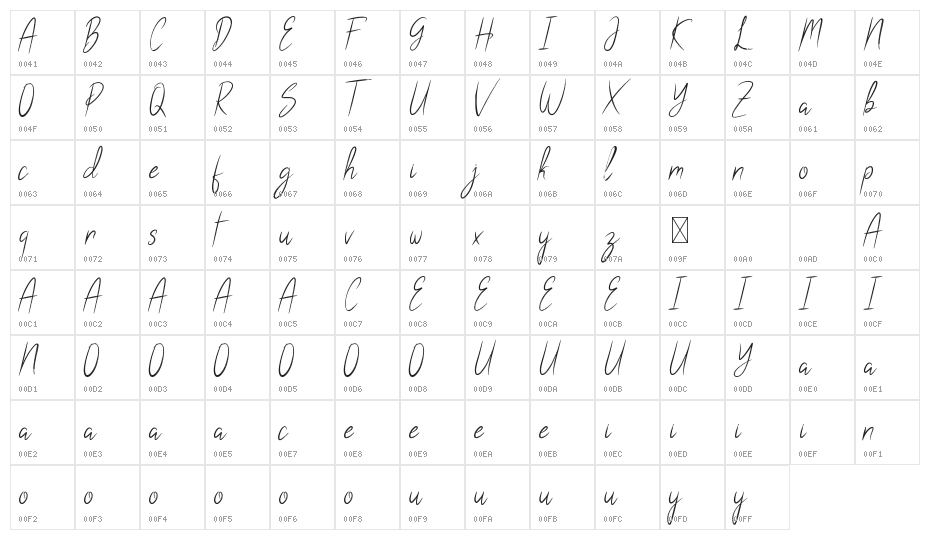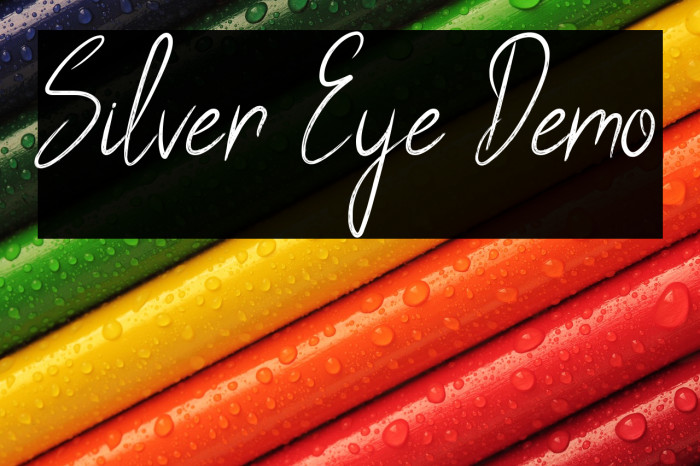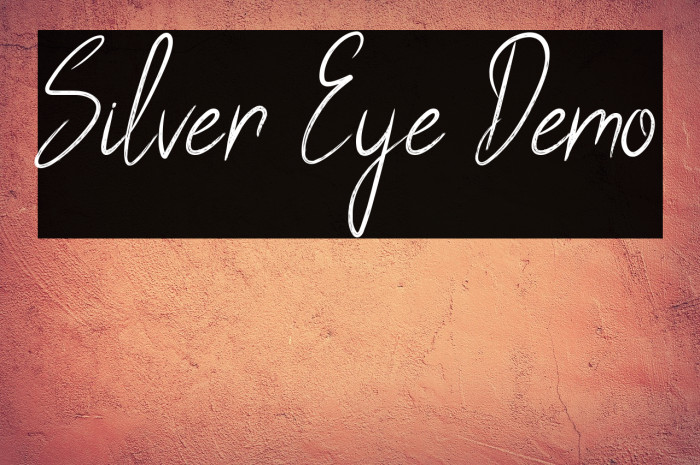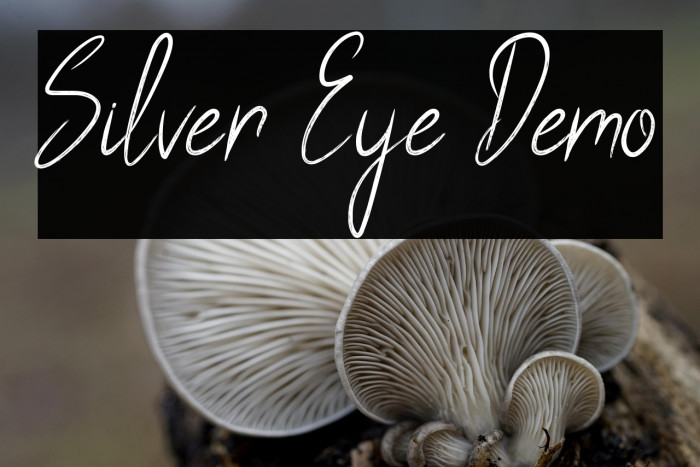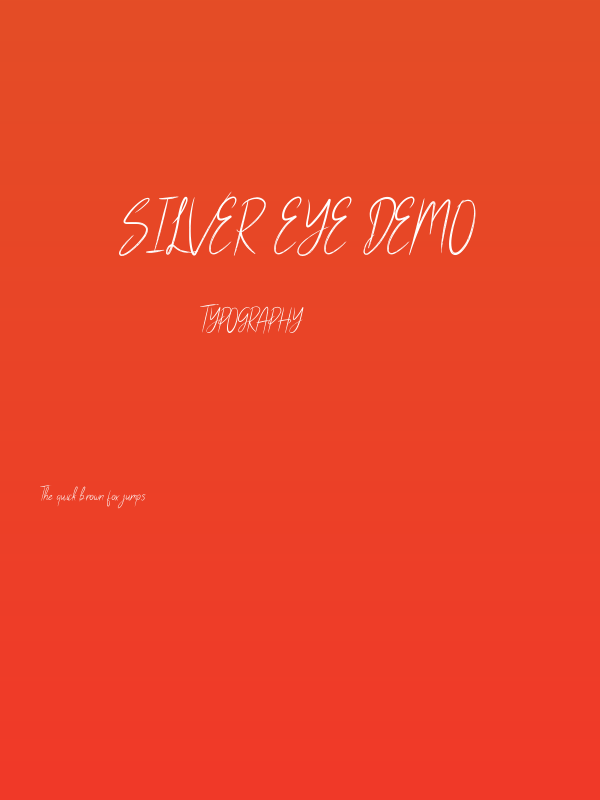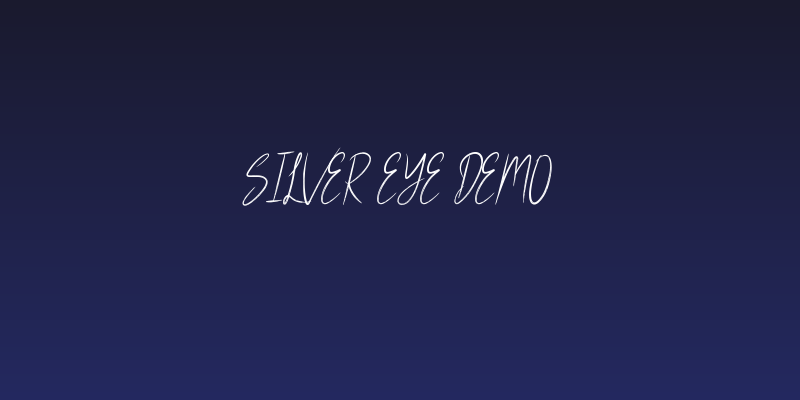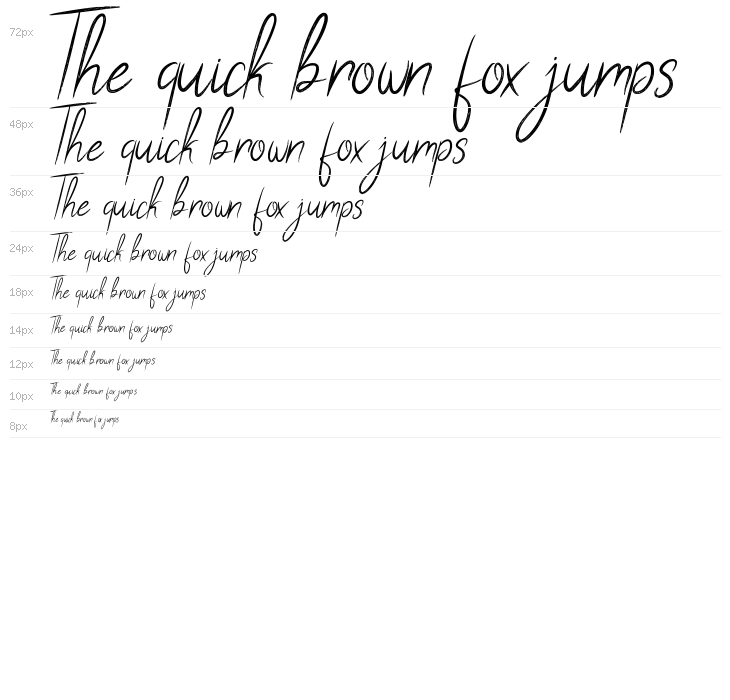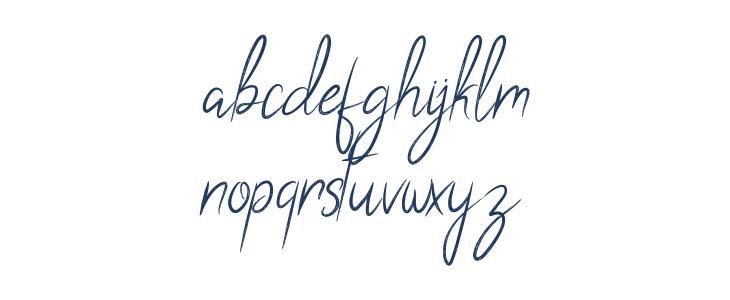
Silver Eye Demo Font
Silver Eye Demo Description
This font features an elegant, flowing script style with elongated, graceful strokes that convey a sense of sophistication and fluidity. The characters are connected, emphasizing a handwritten aesthetic that is both stylish and artistic. The uppercase letters are tall and slender, while the lowercase letters maintain a consistent flow, enhancing readability despite the decorative nature. The font exhibits a dynamic rhythm, with varying stroke widths that add a touch of contrast and visual interest. The overall design is reminiscent of calligraphy, making it suitable for projects that require a personal, yet refined touch.
| Overall Style | Elegant, Artistic |
| Proposed Projects | Ideal for wedding invitations, elegant branding, personal stationery, and artistic projects. |